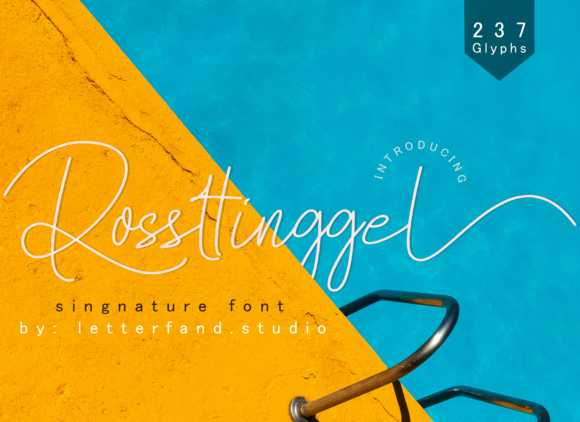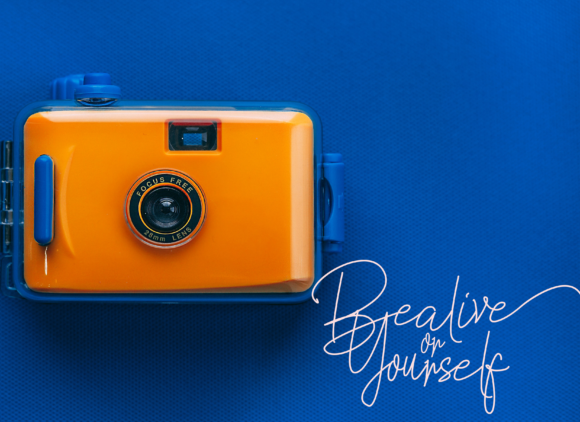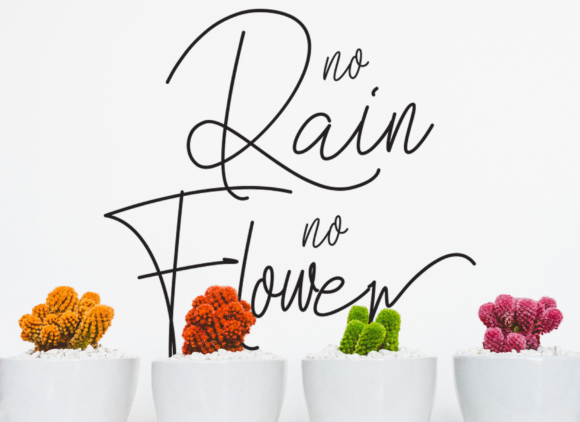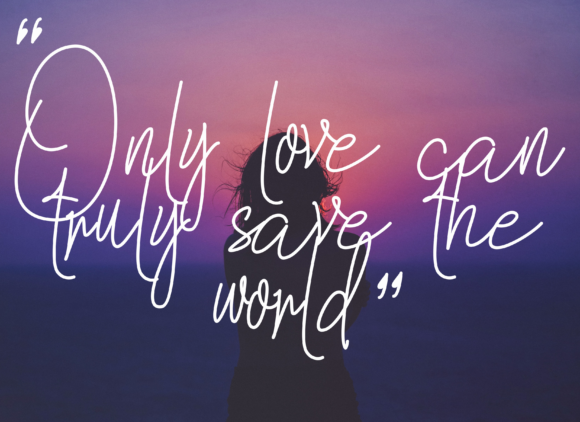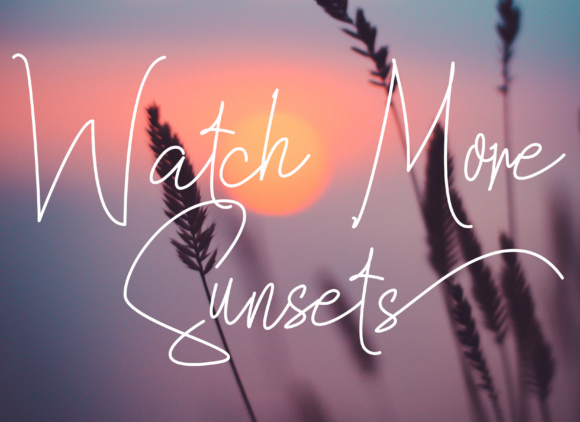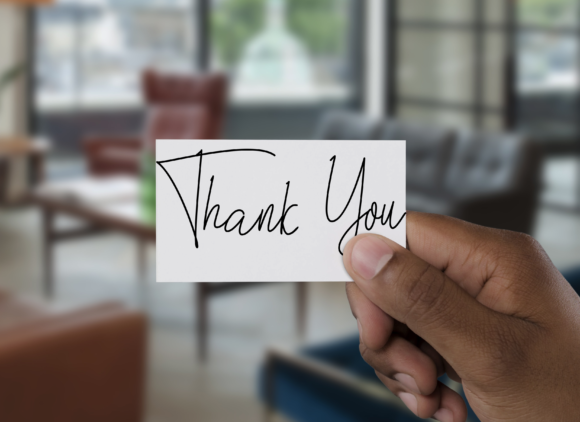
Rossttinggel Font
About Rossttinggel Font
Rossttinggel is a handwritten romantic font. This font is suitable for brands, logos, coffee mugs, wedding text, magazines, book covers, and watermarks.